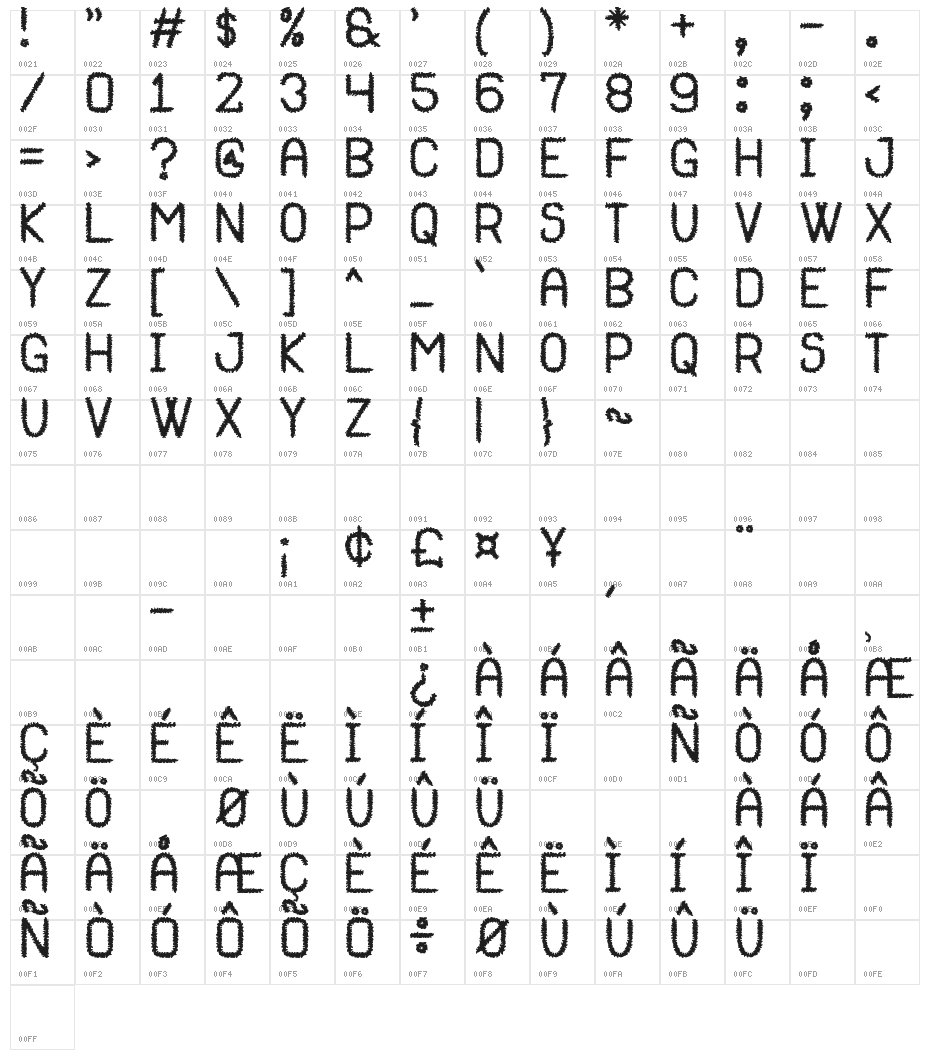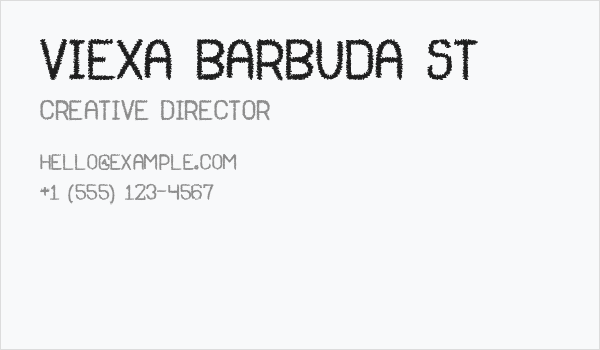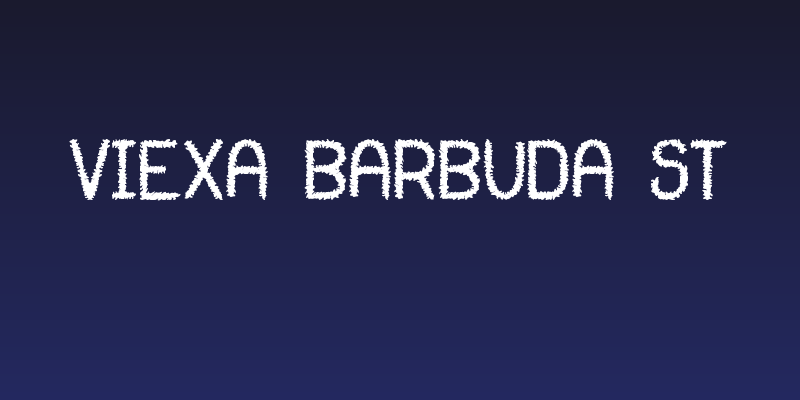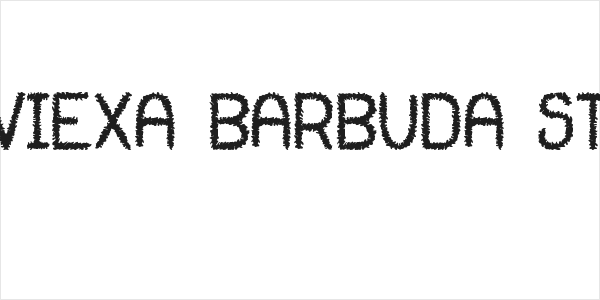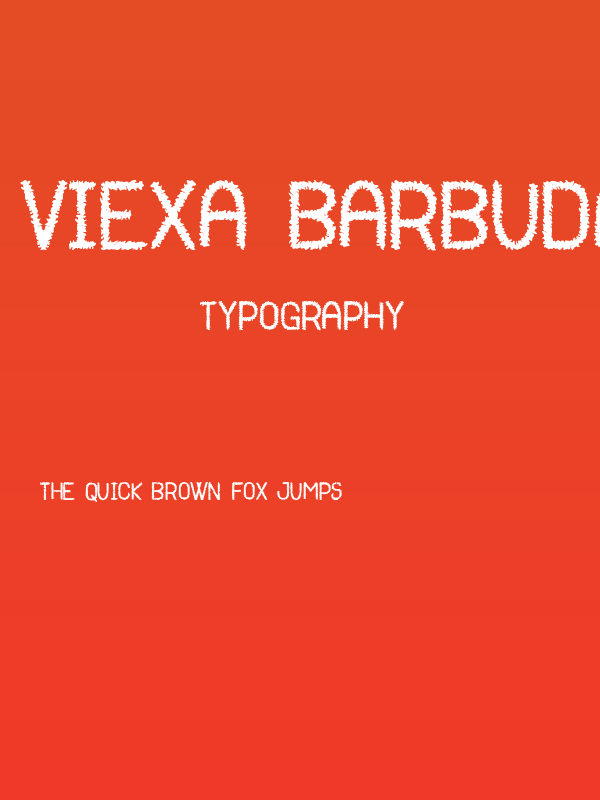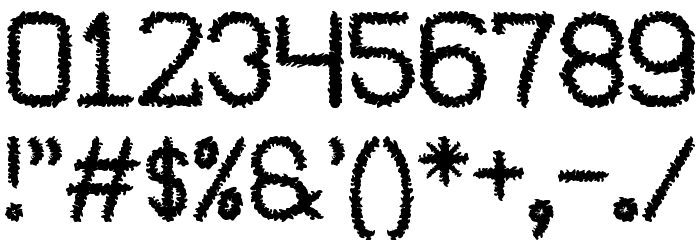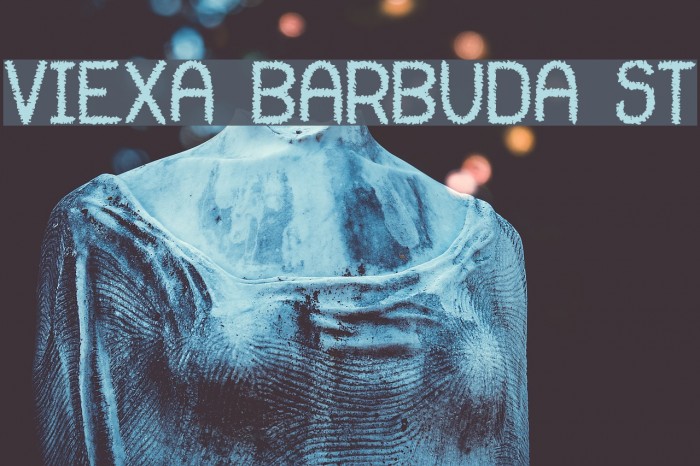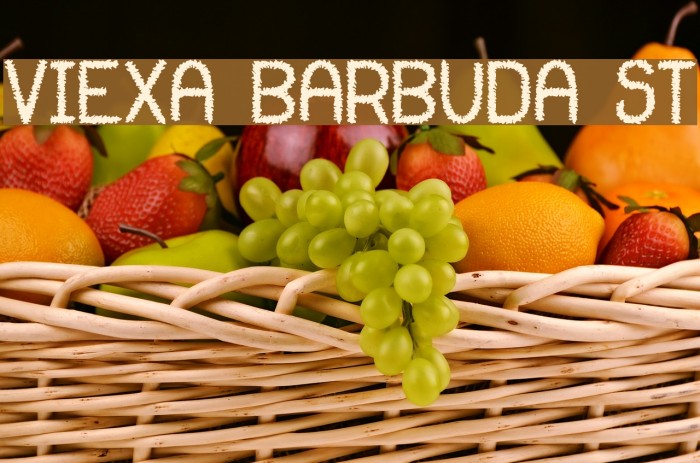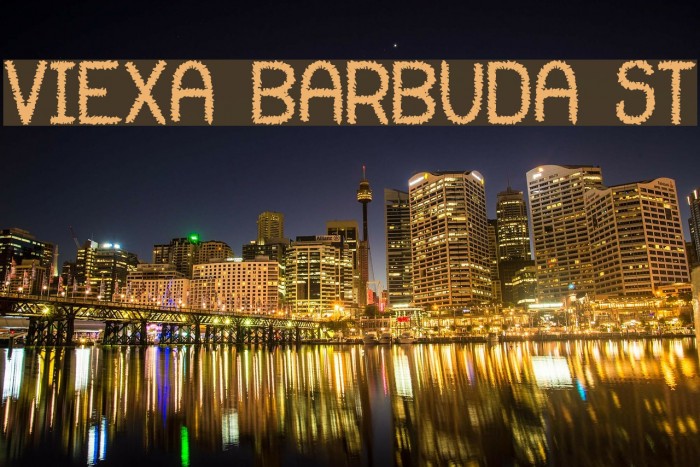
Viexa Barbuda St Font
Viexa Barbuda St Description
This font features a unique and playful design, characterized by its textured, fuzzy edges that give it a dynamic and lively appearance. The letters are bold and slightly irregular, adding a sense of movement and energy. Each character maintains a consistent height, while the width varies slightly, enhancing its whimsical style. The numbers and special characters follow the same design principles, ensuring a cohesive look across all elements. This font is ideal for projects that require a fun and informal touch, making it perfect for creative and artistic endeavors.
| Proposed Projects | Ideal for children's books, playful branding, creative posters, and artistic projects. |